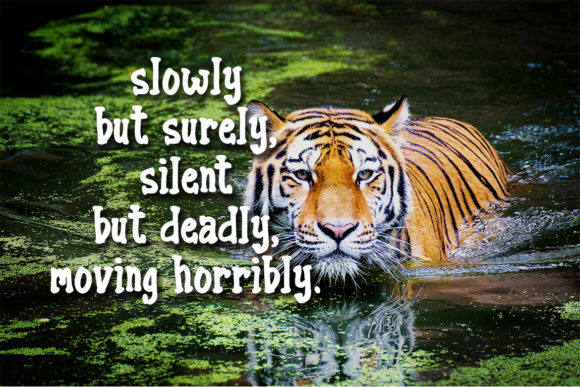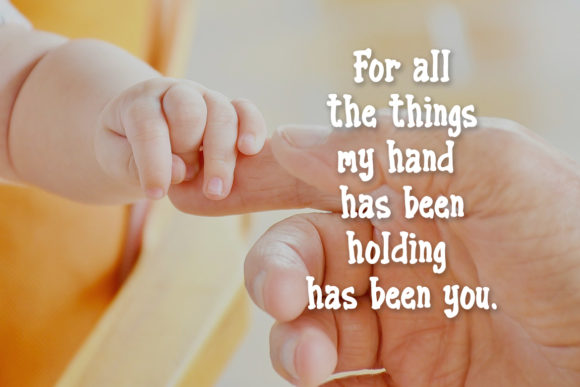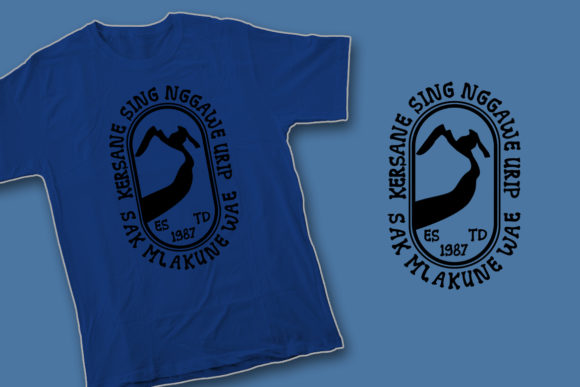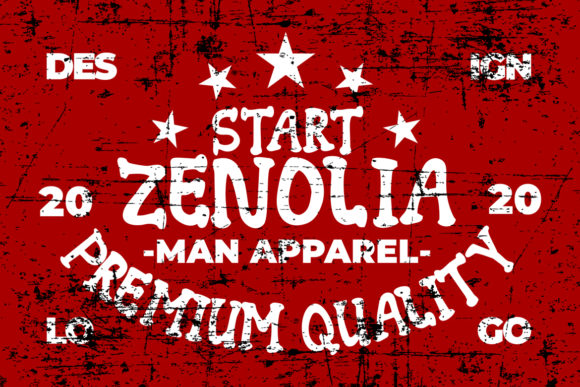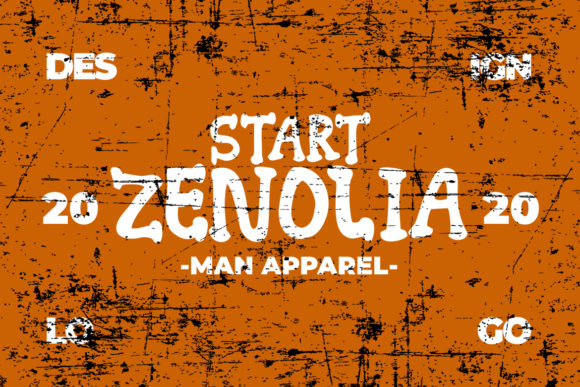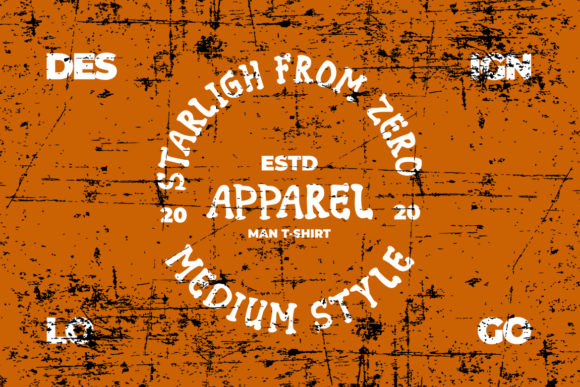
Introducing Frankly Font: The Perfect Blend of Bold and Casual Charm
Are you tired of using the same old fonts for your design projects? Look no further than Frankly Font, a bold display font that’s sure to become a true favorite in your collection. With its casual charm and vintage vibe, Frankly Font is the perfect choice for designers and crafters looking to add a touch of personality to their work.
The Characteristics of Frankly Font
So, what makes Frankly Font so special? For starters, its bold design makes it perfect for grabbing attention and standing out from the crowd. But despite its boldness, Frankly Font remains surprisingly easy to read, making it a versatile choice for a wide range of design applications.
One of the key characteristics of Frankly Font is its casual charm. This font has a down-to-earth feel that’s perfect for designers who want to create work that’s relatable and approachable. Whether you’re designing a logo, a poster, or a website, Frankly Font is sure to help you connect with your audience.
The Benefits of Using Frankly Font
So, why should you choose Frankly Font for your next design project? For one, its versatility makes it a great choice for a wide range of applications. Whether you’re designing a background, a logo, or a standalone title, Frankly Font is sure to look amazing.
Another benefit of Frankly Font is its ability to add a touch of personality to your work. In a world where so many designs can feel generic and impersonal, Frankly Font is a breath of fresh air. Its unique blend of boldness and casual charm makes it the perfect choice for designers who want to stand out from the crowd.
How to Use Frankly Font in Your Design Projects
So, how can you use Frankly Font in your design projects? The possibilities are endless! Here are a few ideas to get you started:
- Use Frankly Font as a title font for a blog post or article. Its bold design and easy readability make it perfect for headings and titles.
- Create a logo for your business or brand using Frankly Font. Its casual charm and vintage vibe make it a great choice for logos that need to feel approachable and relatable.
- Use Frankly Font as a background font for a website or social media graphic. Its bold design and versatility make it a great choice for adding texture and interest to your designs.
Tips for Getting the Most Out of Frankly Font
Here are a few tips for getting the most out of Frankly Font:
- Experiment with different colors and textures to find the perfect combination for your design.
- Don’t be afraid to mix and match Frankly Font with other fonts to create a unique and interesting look.
- Use Frankly Font in combination with images and graphics to add depth and interest to your designs.
In conclusion, Frankly Font is a bold display font that’s sure to become a true favorite in your collection. With its casual charm, vintage vibe, and versatility, Frankly Font is the perfect choice for designers and crafters looking to add a touch of personality to their work. Whether you’re designing a logo, a poster, or a website, Frankly Font is sure to look amazing. So why not give it a try and see the difference it can make in your design projects?